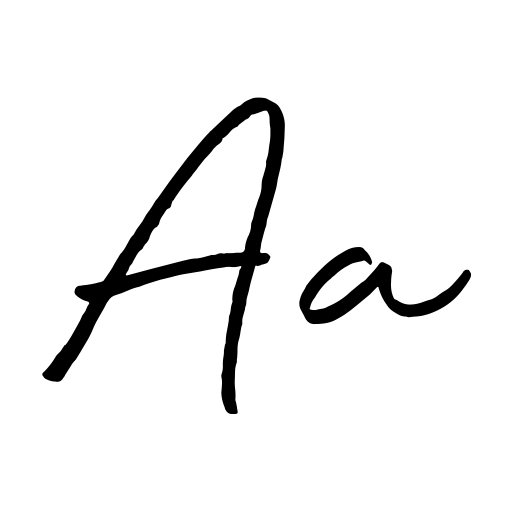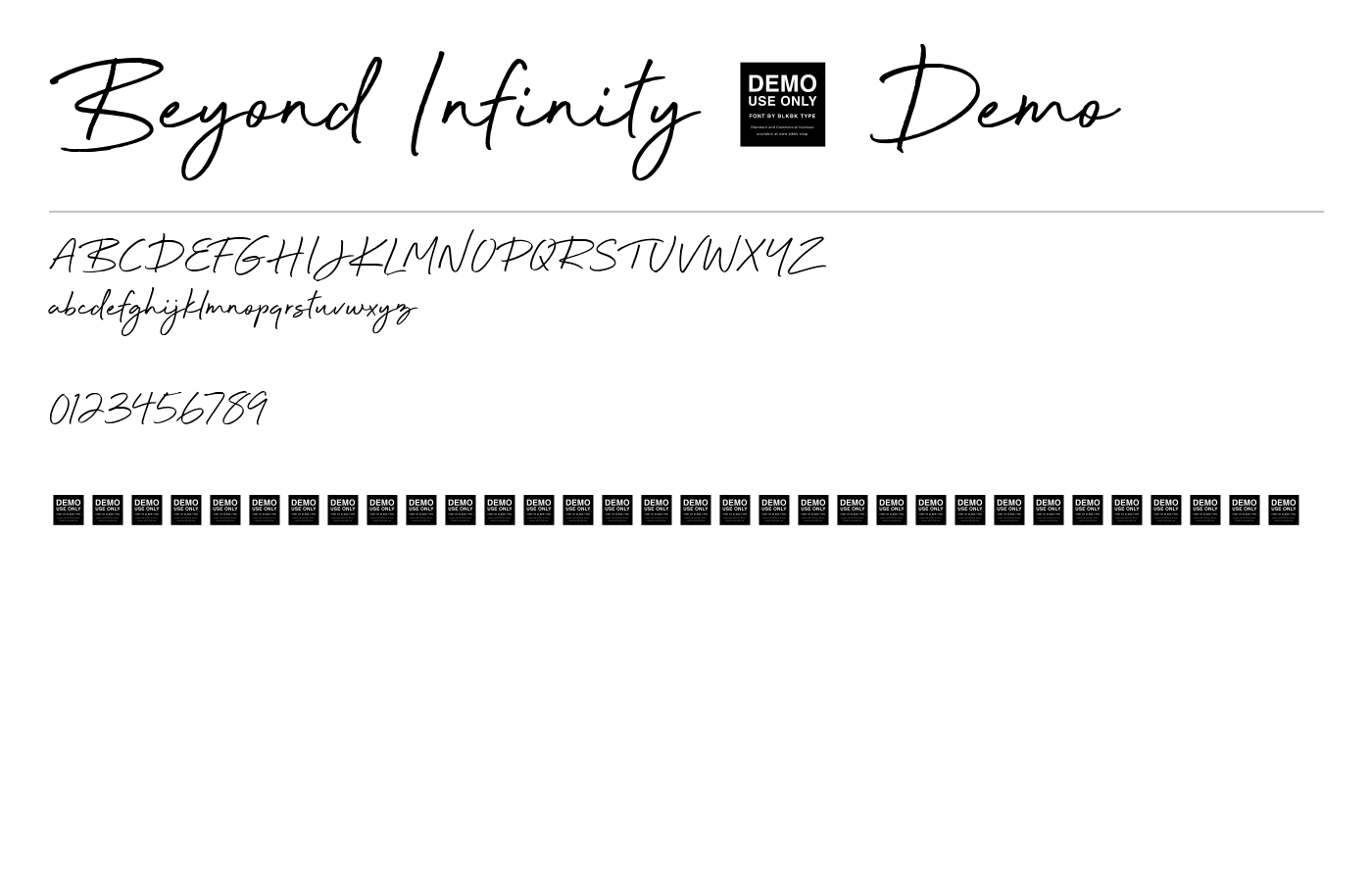
Beyond Infinity is a delicate, handwritten script font characterized by its thin, flowing strokes and casual elegance. It brings a personal, artistic touch to designs, making it ideal for invitations, logos, and creative projects that require a modern yet approachable feel. Its airy letterforms and natural rhythm evoke sophistication with a relaxed vibe, perfect for lifestyle brands and intimate editorial use.
Beyond Infinity - Demo Font
About Beyond Infinity - Demo Font
| Font family | Beyond Infinity - Demo Font |
| Designer | BLKBK |